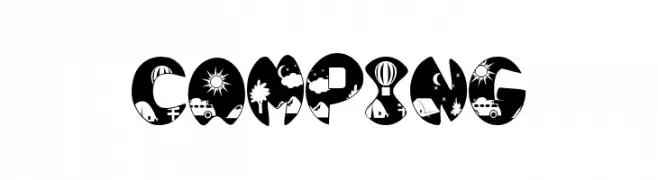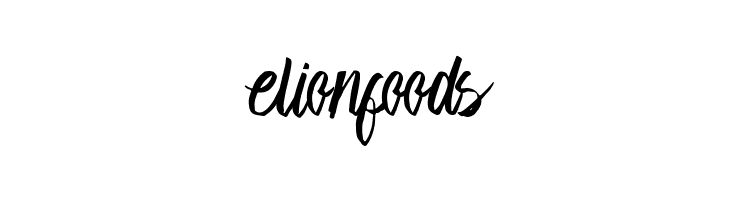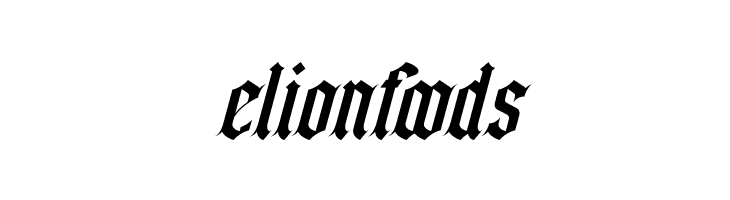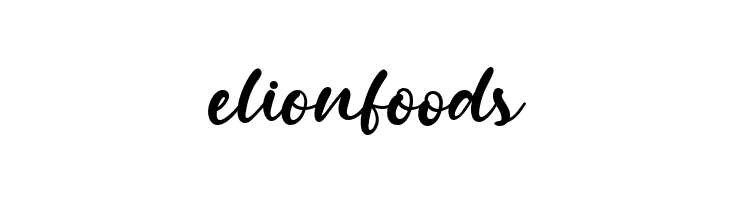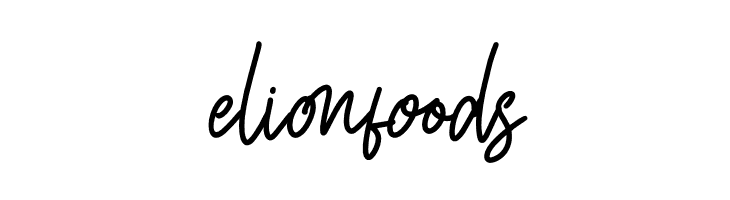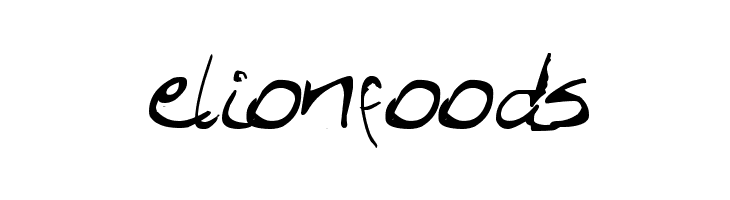
• Cagar
A modern, geometric font with bold, sharp edges and a futuristic style.
• California sun Italic
A modern blackletter font with italic slant and intricate detailing.
• CaliforniaDesigns
An expressive and dynamic handwritten font with fluid strokes.
• Caligrafica Arito
A dynamic, cursive font with fluid, handwritten style and varying stroke widths.
• Calliston
A fluid and dynamic handwritten font with a casual and creative style.
• calya
A playful and elegant handwritten script font with flowing cursive lines.
• Cambridge
• Camping
A decorative font featuring camping-themed illustrations within each character.
• Canasita
A whimsical, handwritten font with thin, elongated characters and a playful elegance.
• Candle Fest
A flowing, cursive font with a modern yet classic handwritten style.